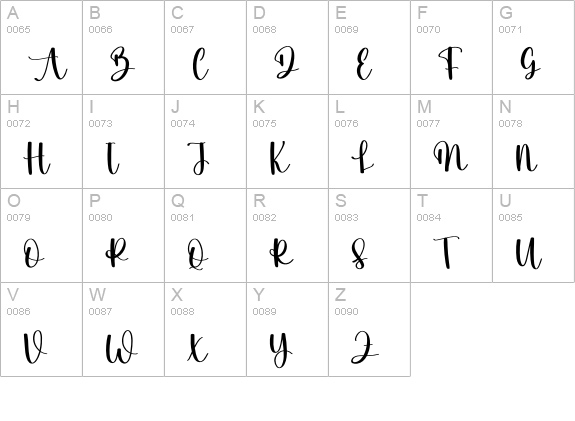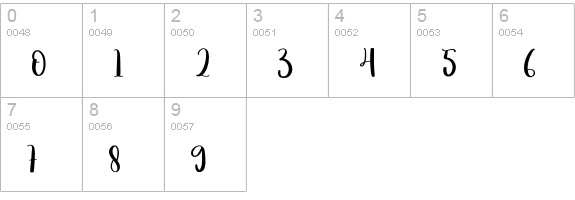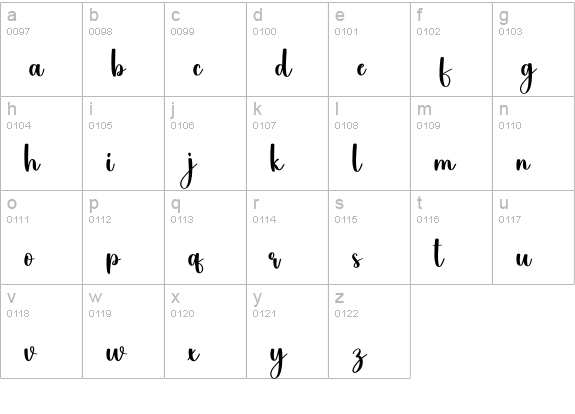
Skincare Font Details
Skincare is a free for personal use font in the Script > Handwritten category, designed by scratchones. It has been downloaded 25 times and is available for Windows, Mac and Linux.
Introducing the Skincare font – a refreshing and modern typeface designed to bring a touch of elegance to your skincare-related projects. This unique font exudes sophistication and style, making it perfect for branding, packaging, logos, and more in the beauty and wellness industry.
With its sleek lines and clean aesthetic, Skincare font evokes a sense of luxury and purity, just like the skincare products it represents. Whether you are designing labels for serums, creams, or masks, this font will elevate your designs to a whole new level.